20 Spooky & Stylish Fonts for Fall & Halloween Designs
Fall is in the air, and that means it’s time to swap out your bright summer palettes for moody autumn hues, cozy textures, and just the right amount of spooky flair. Whether you’re designing seasonal invitations, creating Halloween party printables, or adding a festive touch to your small business branding, the right font can completely transform your project. I’ve rounded up my favorite fall and Halloween-themed fonts so you can start creating right away. From eerie hand-lettered scripts to bold vintage serifs, these fonts are perfect for everything from social media graphics to DIY home decor.
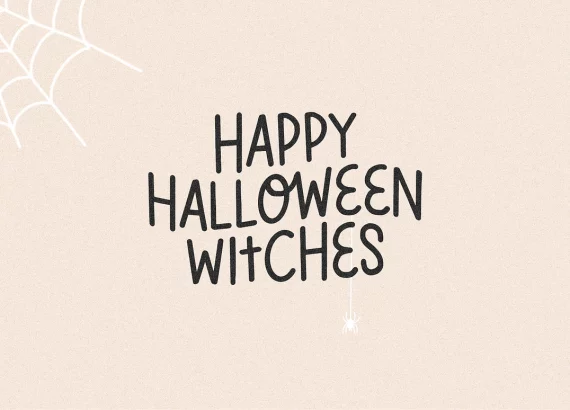
Fright Ghosts is a playful, hand-drawn font that’s perfect for adding a spooky twist to your fall projects. Its quirky letters work for Halloween invitations, DIY party signs, or seasonal social posts. It’s a fun choice for both kid-friendly and grown-up designs.
Best for: Halloween invites, party decor, social media, DIY crafts.
2. Kindly Witch by Airotype
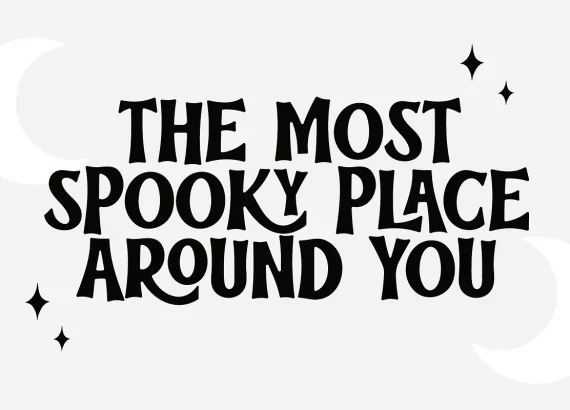
Kindly Witch mixes whimsical curves with just the right hint of eerie, making it perfect for both spooky and cozy fall designs. Its bold, playful style stands out on Halloween party flyers, seasonal t-shirts, and Cricut or Silhouette projects.
3. Spooky Halloween by Keithzo
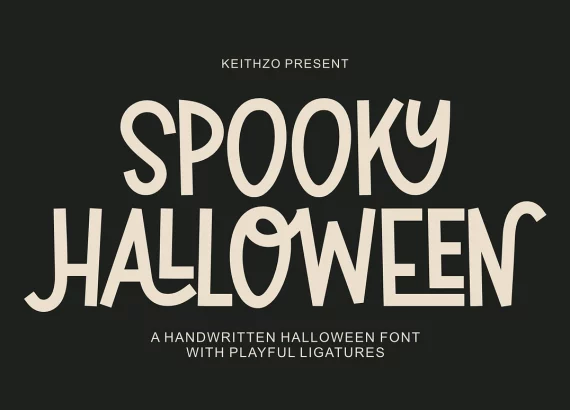
Spooky Halloween is a bold, handwritten font with playful ligatures that bring personality to any design. Its tall, slightly quirky letters make it perfect for eye-catching headlines on party flyers, DIY Halloween decor, or seasonal product labels.
4. Spooky Retro by Kiethzo
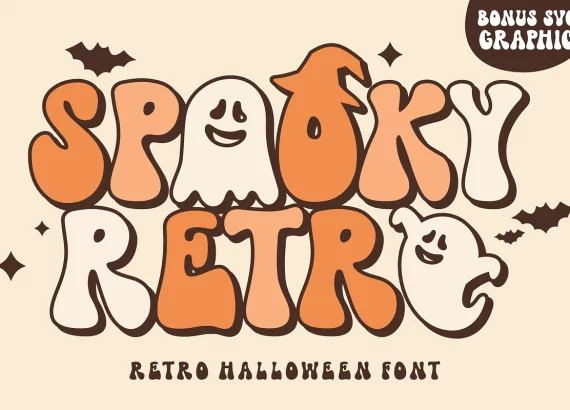
Spooky Retro is a bold, bubble-style font packed with vintage Halloween charm. With playful ghost and hat details, it’s perfect for retro-inspired party invites, t-shirt designs, and seasonal signage.
5. Handwritten Halloween by Keithzo
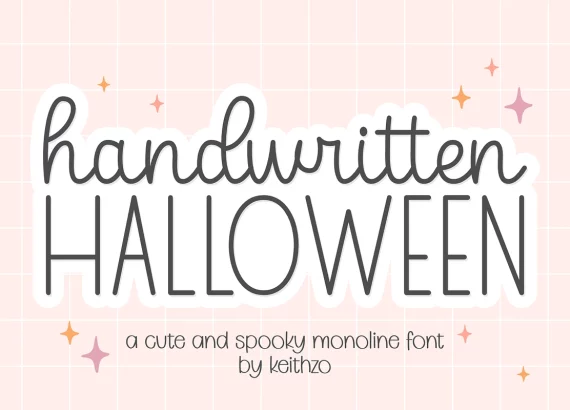
Handwritten Halloween is a cute, monoline font that blends whimsical charm with just a touch of spooky. Its clean lines make it perfect for kid-friendly Halloween crafts, classroom printables, or seasonal stickers.
6. Scary Club by simpleblues
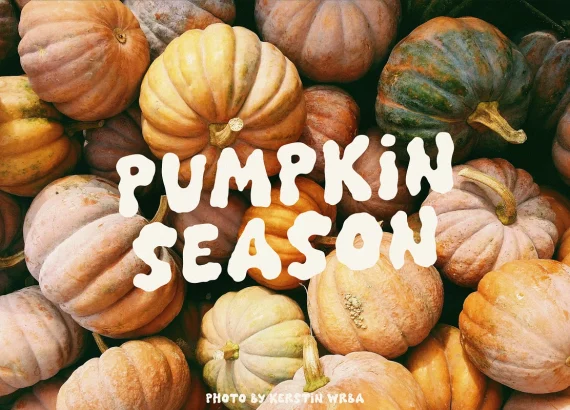
Scary Club is a bold, blobby display font that feels both retro and a little eerie, perfect for fall harvest vibes or playful Halloween designs. Its organic shapes make it stand out on posters, t-shirt graphics, and seasonal market signage.
7. Spooky Vibes by JuliaValkova
Spooky Vibes is a cute, rounded display font that’s perfect for adding a friendly, non-scary touch to your Halloween designs. It even comes with bonus illustrated elements, making it great for quick and easy seasonal projects.
8. Boneyard by KA Designs
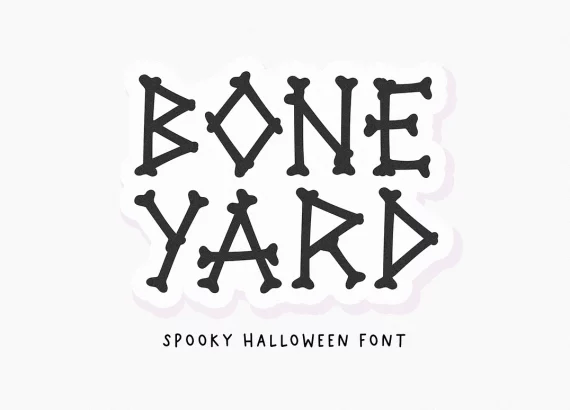
Boneyard is a quirky Halloween font made entirely of bone-shaped letters, perfect for creepy-cute designs. It’s bold enough for headlines yet playful enough for party decor or classroom crafts.
9. Night Party by BitongType
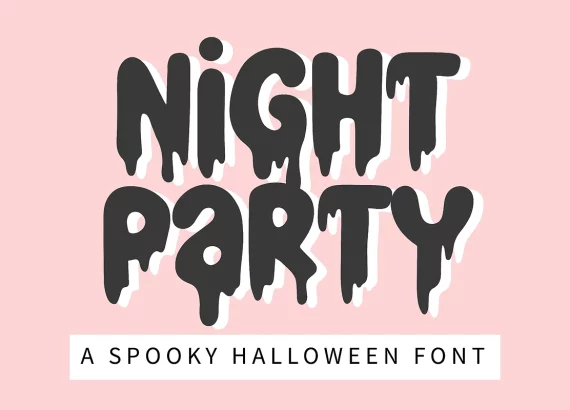
Night Party drips with spooky style, literally. Its bold, melting letters are perfect for adding a creepy, dramatic touch to Halloween flyers, haunted house signage, or themed party invites.
10. Retrospect by Rachel Kick
Retrospect is a rounded, vintage-inspired display font that brings cozy fall nostalgia with a hint of Halloween fun. Its soft, bubbly letters are great for seasonal t-shirts, Instagram quotes, or retro-style party flyers.
11. Spooky Ghost by Blush Font Co
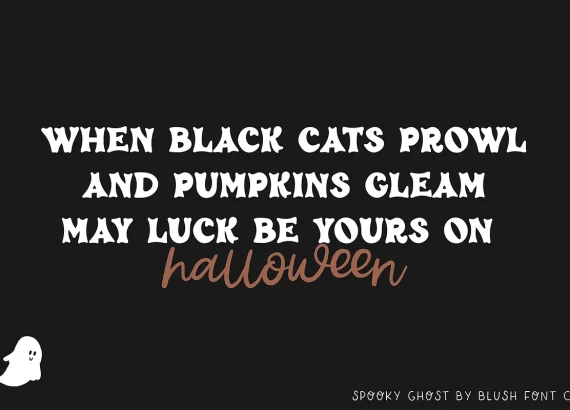
Spooky Ghost is a fun, bouncy display font with a hand-crafted feel that’s perfect for adding playful energy to your Halloween designs. It works beautifully on greeting cards, party invites, or social media graphics.
12. Autumn Ransom by Blush Font Co
Autumn Ransom is a playful, color-packed font that mixes fall shapes like leaves, acorns, and pumpkins into each letter. With five OTF color variations, a black-and-white version, and SVG letters, it’s perfect for bold seasonal headlines.
13. Harvest by Blush Font Co
Harvest is a bold, modern font with a trendy outline-and-fill style that’s perfect for autumn-themed designs. Its clean, playful look makes it great for Instagram posts, mugs, tote bags, or seasonal apparel.
14. Witchy by Blush Font Co
Witchy is a casual, hand-painted script font that feels effortless yet festive, perfect for adding a relaxed Halloween vibe. It even comes with bonus spider doodles for extra spooky fun.
15. Retro Halloween by DMletterStudio
Retro Halloween blends groovy 70s vibes with dripping, spooky lettering for a fun and dramatic seasonal look. It’s ideal for bold headlines on party flyers, haunted house posters, or themed merch.
16. Pumpkin Custard by Blush Font Co
Pumpkin Custard is a rustic handwritten serif that’s full of cozy fall charm. Its slightly imperfect lines give it a handmade feel, making it perfect for farmhouse-style decor, recipe cards, or autumn event signage.
17. Apple Cider by Blush Font Co
Apple Cider is a vintage serif font with tall, narrow letters that give off a cozy, rustic vibe. Perfect for fall farmhouse decor, recipe books, or seasonal branding, it adds warmth and charm to any design.
With so many fall and Halloween fonts to choose from, you can bring a little spooky magic to any project, whether it’s party invitations, seasonal merch, or social media graphics. Each of these fonts offers its own unique style, from retro and whimsical to bold and eerie. Pick your favorites, start designing, and let your creativity run wild this autumn. Don’t forget, fonts are the secret ingredient that can turn a good design into something truly fang-tastic!